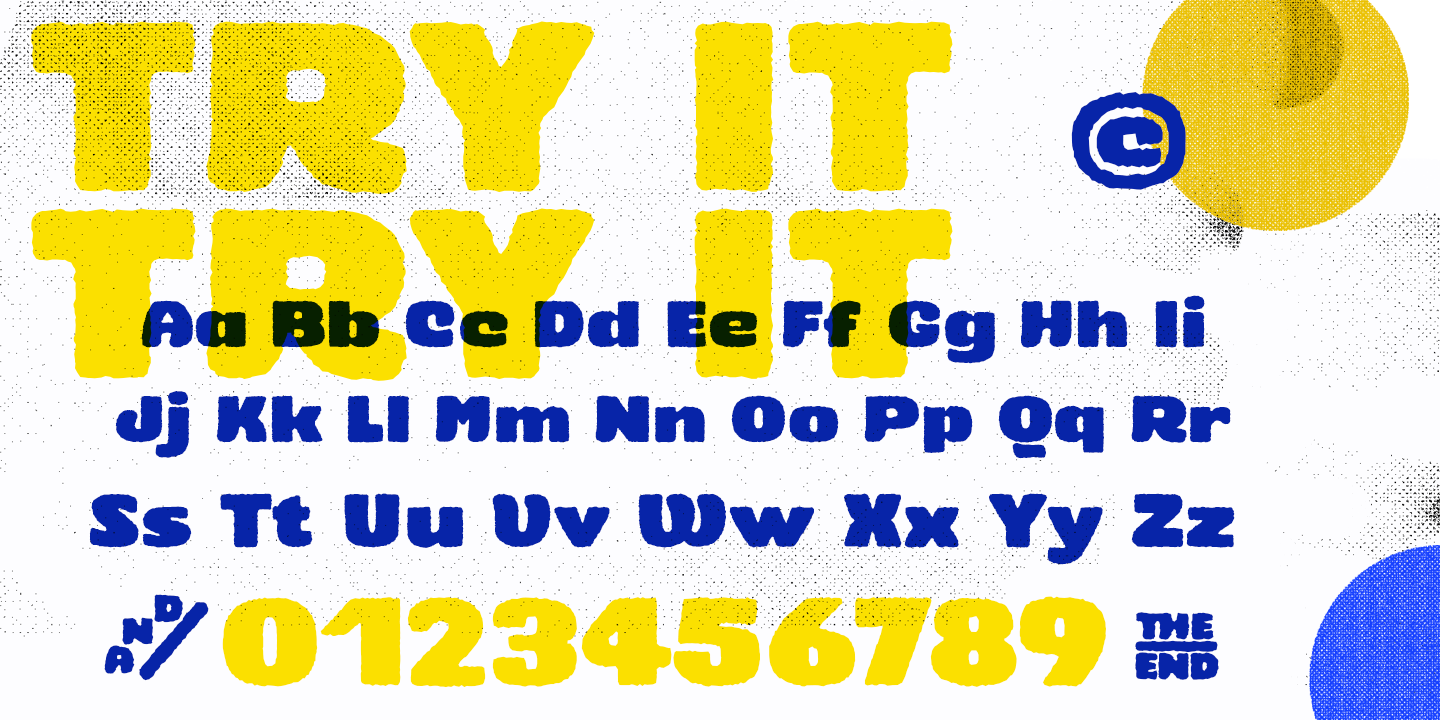
Stubby Rough Font is a distinctive, gritty, and incredibly characterful typeface, perfect for designs that aim to convey an authentic, hand-crafted, and slightly distressed aesthetic. Imagine it bringing a rugged, indie vibe to craft beer labels, adding a raw, urban edge to music festival posters, or giving a unique, artisanal feel to vintage-inspired apparel branding. It’s an exceptional choice for designing impactful album covers, creating dynamic street art-inspired graphics, personalizing handmade product packaging, and enhancing any project where a sense of rustic charm, bold texture, and genuine individuality is desired. Its unique rough texture makes it suitable for anything from rebellious brand identities to charming, distressed signage, adding an immediate sense of character and authenticity.
What makes Stubby Rough Font truly exciting is its remarkable ability to combine a sturdy, impactful presence with an organic, distressed finish. It possesses an inherent tactile quality that feels genuinely hand-stamped or printed, avoiding the sterile perfection of purely digital fonts. Designers are often drawn to its raw energy and the subtle imperfections that give each character a unique, weathered appeal. It’s a font that communicates with a sense of honesty, craftsmanship, and a touch of rebellious spirit, ensuring your message feels authentic and distinctive. Stubby Rough Font brings a powerful, unpolished charm to your designs, allowing them to connect with audiences who appreciate genuine, handcrafted aesthetics.
The Stubby Rough Font family typically offers a range of styles and features that enhance its versatility for various creative applications. While specific family members might vary, you can often expect a robust Regular weight that embodies its signature textured, rough appearance. Many Stubby Rough Font families also include variations in distress levels or alternative characters, which allow for extensive customization and truly unique typographic compositions that enhance its handcrafted appeal. These additional features enable designers to create highly personalized text, ensuring that Stubby Rough Font can adapt to intricate design requirements while maintaining its charming, expressive character across various applications and sizes.